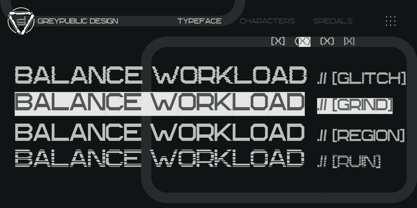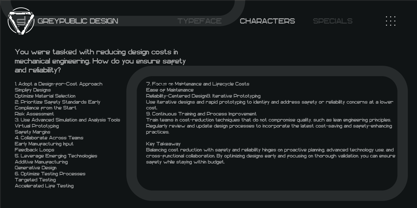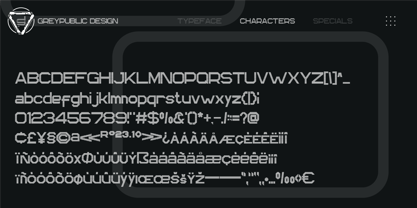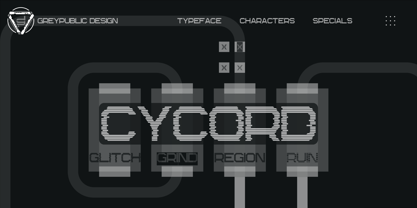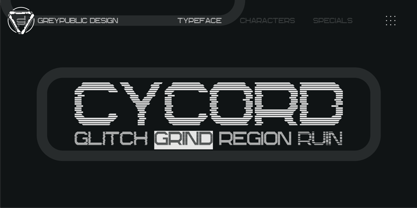
CyCord
by Greypublic
The CyCord Font Family was designed by Eko Nur Setiawan and published by Greypublic. CyCord contains 4 styles and family package options. More about this family
The Cy-cord typography series appears to have a futuristic and digital aesthetic, with it's characters composed of segmented, horizontal lines. Each letter has a geometric, block-like structure, evoking a technological and sci-fi theme. The use of uniform horizontal stripes gives the typeface a modern, minimalistic feel, while maintaining legibility and a bold presence. This style would be ideal for designs in tech industries, video game titles, or digital branding where a cutting-edge, sleek look is desired.
Designers: Eko Nur Setiawan
Foundry: Greypublic
Greypublic design is part of gREyPUBLIC, which is specifically dedicated to designing and creating unique typography. As time goes by, develop ideas and concepts to bring new in the industries.Focused and excited to be able to share the inspiration in modern typography.It involves careful consideration of various factors to ensure that text is not only readable but also visually pleasing and effectively communicates its intended message.